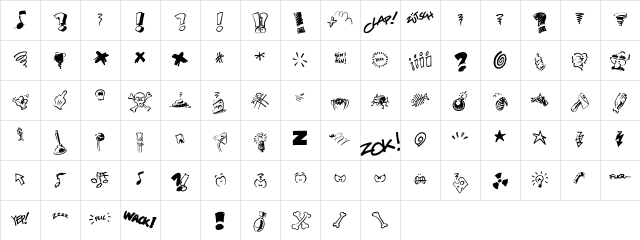
DammnedDingbats Regular Free Font
DammnedDingbats Regular
DammnedDingbats Family
Design Context for DammnedDingbats
DammnedDingbats is a composed and adaptable typeface that performs quietly and consistently across a wide range of design contexts.